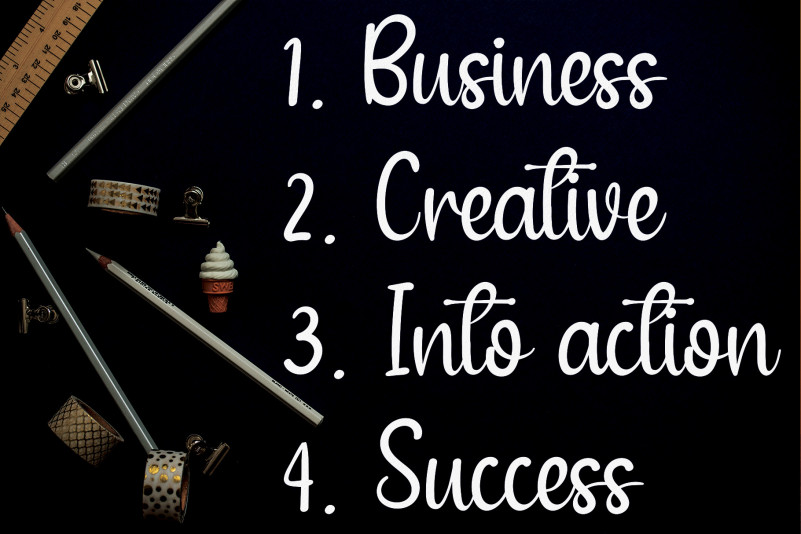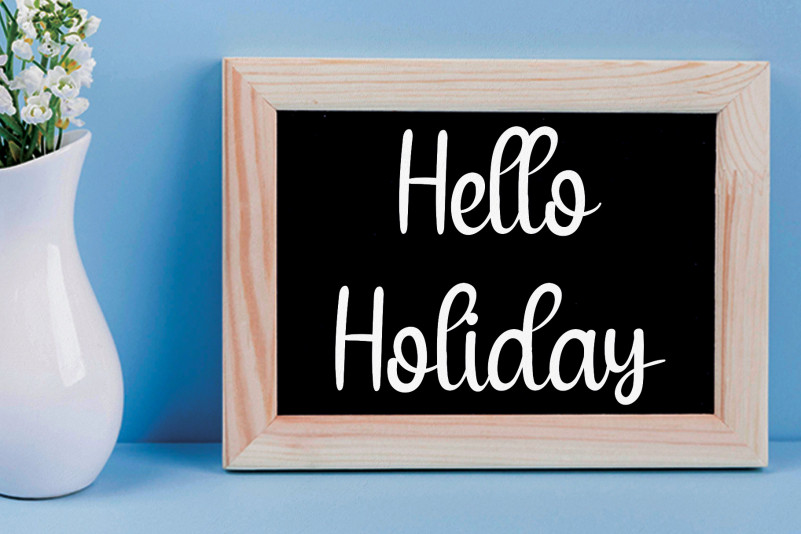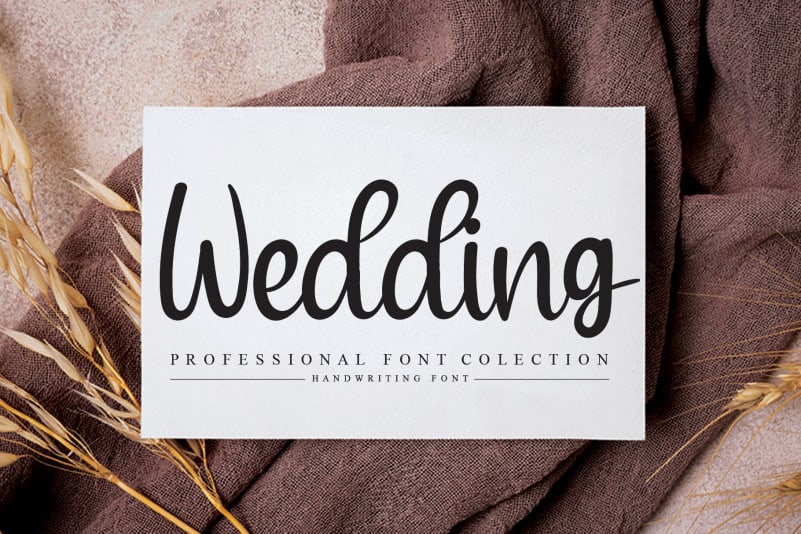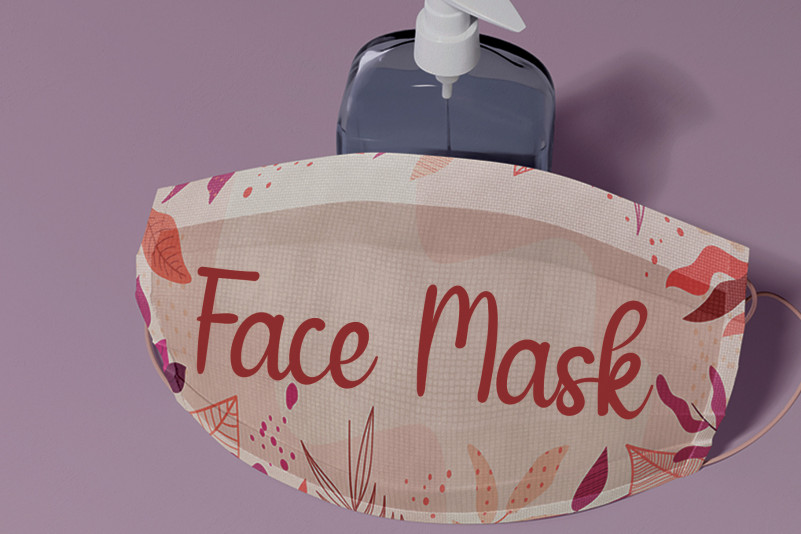
Winter Sunshine Script Font
Winter Sunshine Script Font is a casual handwritten font. It is perfect for wall displays, wedding invitations, social media post logos, advertisements, product packaging, product designs, labels, photography, watermarks, invitations, stationery and any project that requires a handwritten touch.